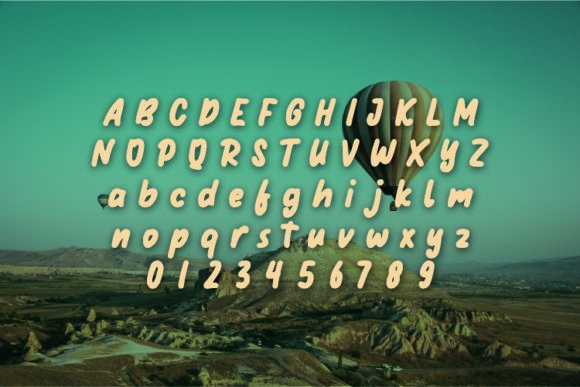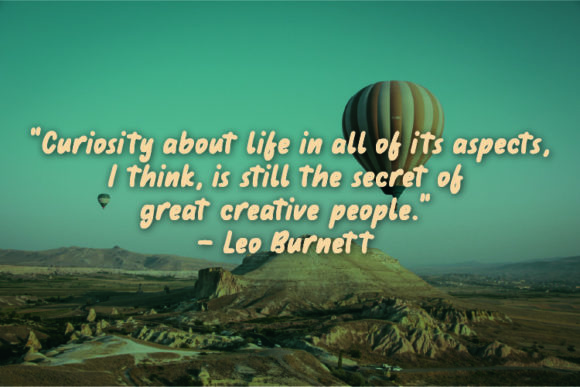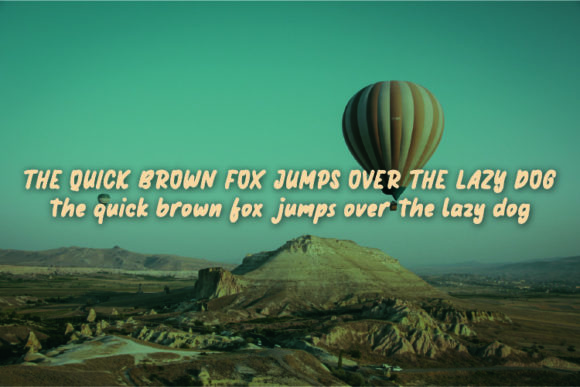
Introducing Baloon Font: The Perfect Choice for Cute and Playful Designs
Are you a designer or crafter looking for a font that adds a touch of whimsy and playfulness to your creations? Look no further than Baloon Font! This adorable handwritten font is perfect for cartoon-related designs, children’s games, and any project that requires a lovely and natural feel.
What is Baloon Font?
Baloon Font is a cute and natural handwritten font that is sure to capture the hearts of designers and crafters alike. Its unique and playful style makes it an excellent choice for a wide range of projects, from children’s books and games to greeting cards and party invitations.
Key Features of Baloon Font
- Cute and Playful Style: Baloon Font has a distinctive and charming style that is perfect for creating fun and engaging designs.
- Natural Handwritten Look: This font has a natural, handwritten look that adds a personal touch to any project.
- Versatile: Baloon Font can be used for a wide range of projects, from digital designs to print materials.
- Easy to Read: Despite its playful style, Baloon Font is easy to read, making it perfect for body text and headings.
Use Cases for Baloon Font
Baloon Font is an incredibly versatile font that can be used for a wide range of projects. Here are some ideas to get you started:
- Children’s Books and Games: Baloon Font is perfect for creating engaging and interactive children’s books and games.
- Cartoon-Related Designs: This font is a great choice for designing cartoon characters, logos, and branding materials.
- Greeting Cards and Party Invitations: Add a touch of whimsy to your greeting cards and party invitations with Baloon Font.
- Digital Designs: Use Baloon Font to create fun and engaging digital designs, such as social media graphics and website headers.
Tips for Using Baloon Font
Here are some tips for getting the most out of Baloon Font:
- Pair with Other Fonts: Experiment with pairing Baloon Font with other fonts to create a unique and visually appealing design.
- Use for Headings and Body Text: Baloon Font is easy to read, making it perfect for both headings and body text.
- Add Color and Texture: Add some extra visual interest to your design by incorporating color and texture.